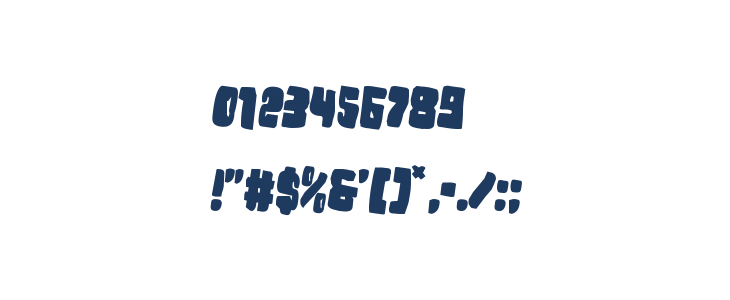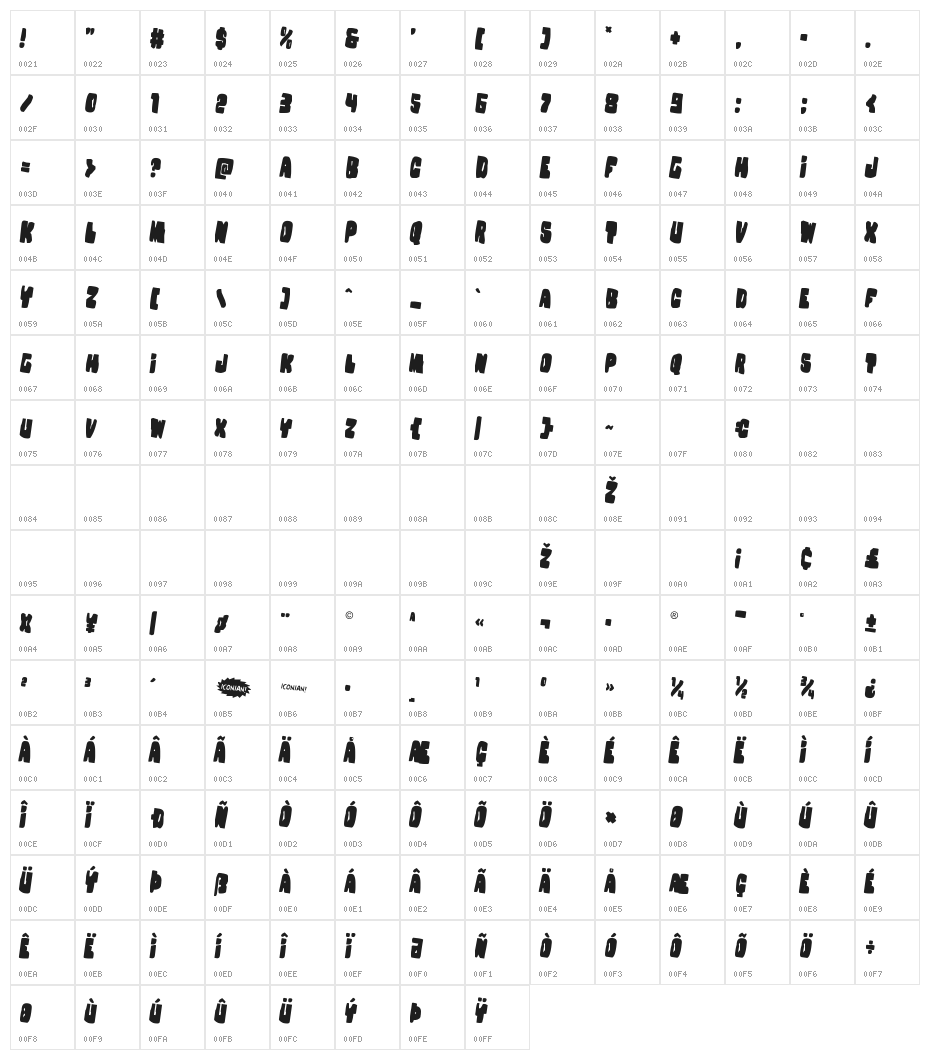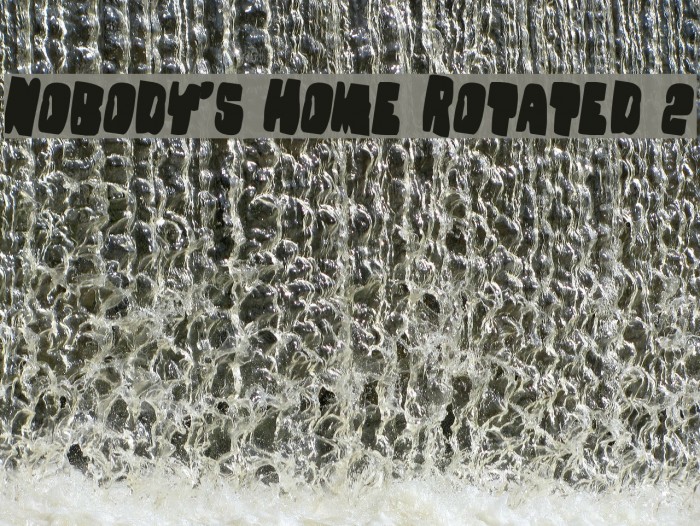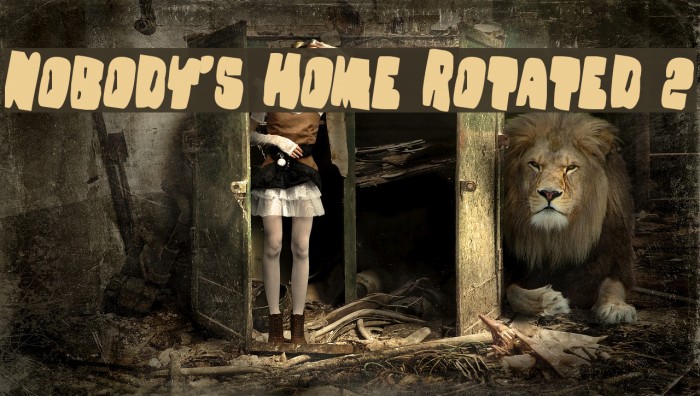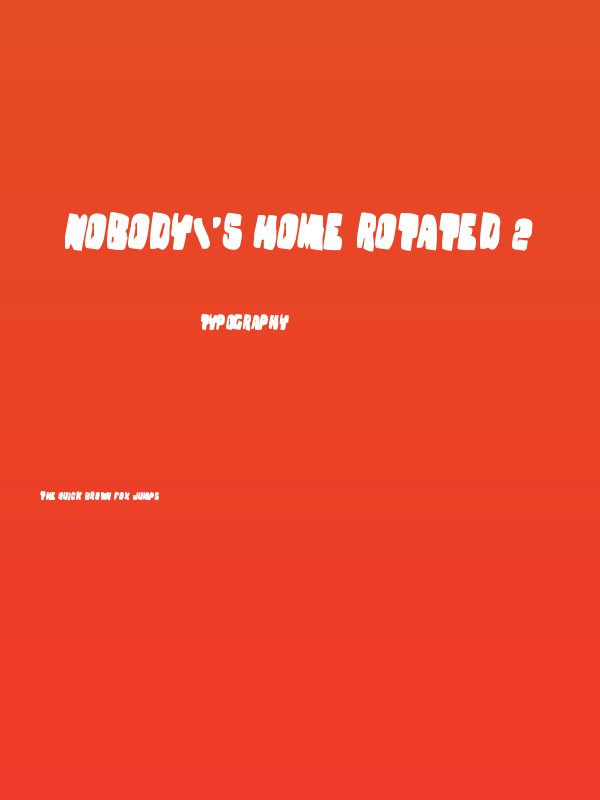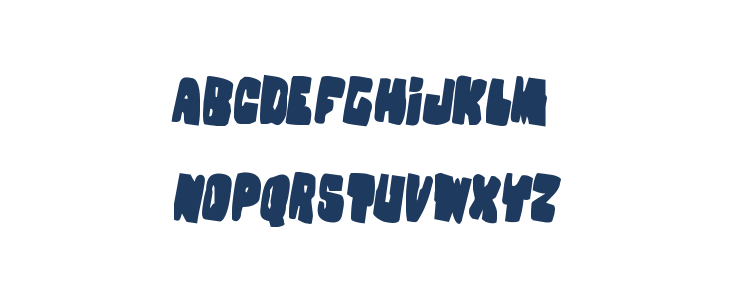
Nobody's Home Rotated 2 Font
This font features a bold and playful design with a distinctive, irregular shape that gives it a dynamic and energetic appearance. The characters are thick and robust, with uneven edges that create a sense of movement and spontaneity. This style is reminiscent of graffiti or street art, making it ideal for projects that require a bold and unconventional look. The uppercase and lowercase letters maintain a consistent style, while the numbers and special characters complement the overall aesthetic with their chunky and expressive forms.
| Proposed Projects | Ideal for street art-inspired designs, posters, album covers, and creative branding projects. |